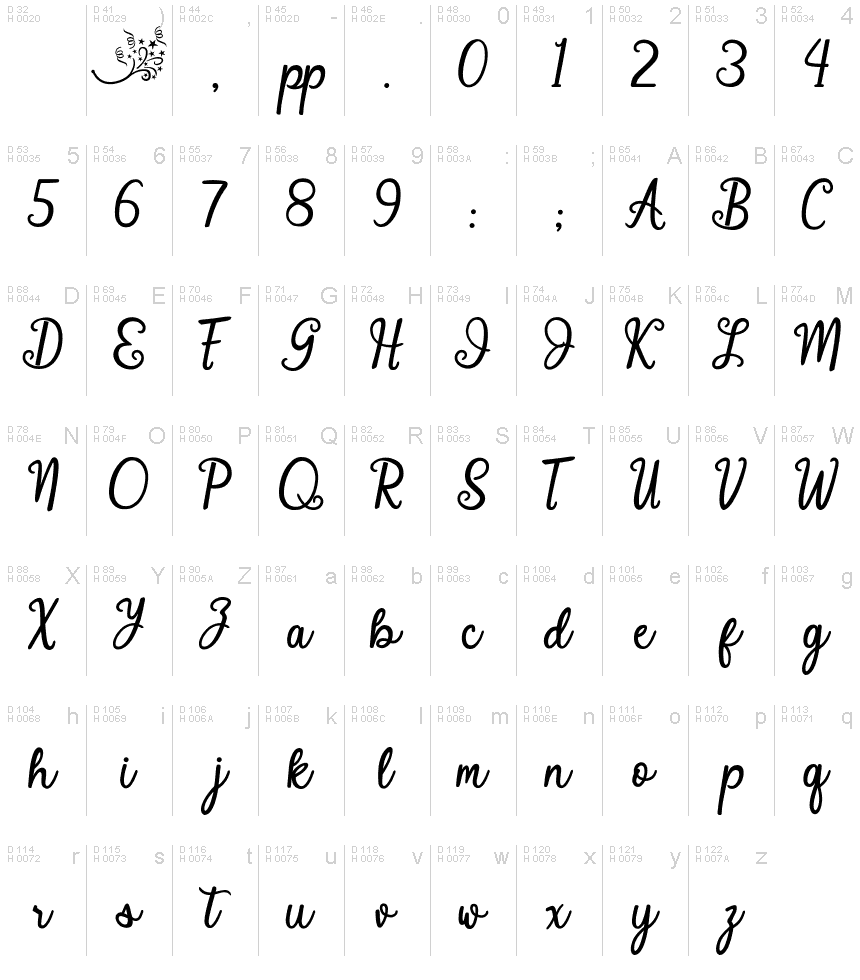
Happy Iness
This font is partial.
For partial version use ) after a letter to display the lowercase ending, use - to display pp ligature. Example: Ha-y Iness)
The complete version include:
- Alternates by using Open Type Features or PUA for j l r s t and &.
- Ligatures by using Open Type Features or PUA for pp and tt.
- Features stylized for beginnings and endings of stars, hearts, serpentines, and butterflies; by using symbols () [] and {}.